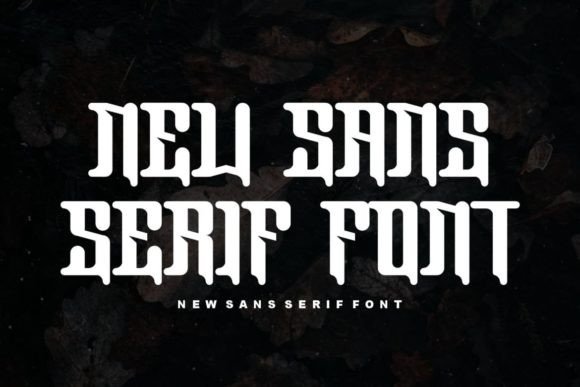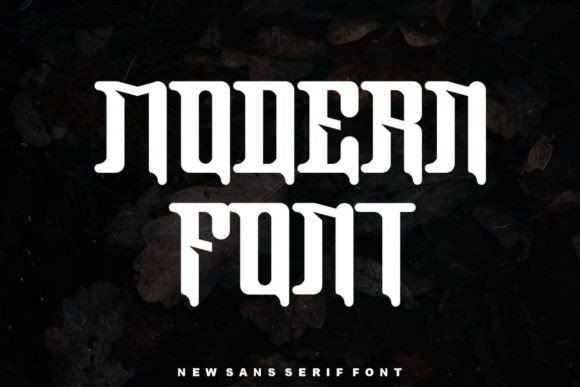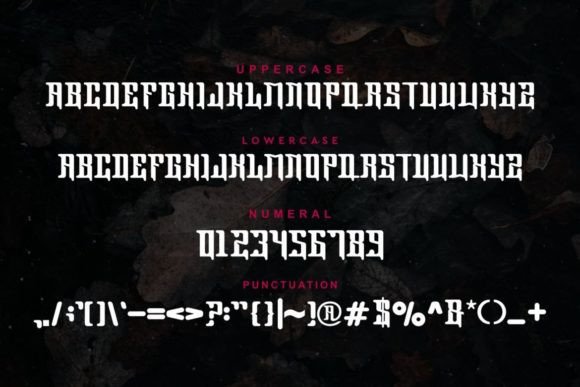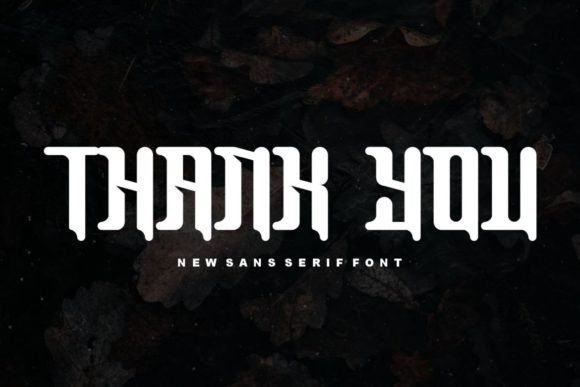
Unleash the Power of Dead Black Font: Elevate Your Designs with a Bold and Authentic Blackletter Style
In the world of typography, fonts play a crucial role in conveying the tone and personality of a brand. For designers and crafters looking to make a statement, Dead Black Font is an exceptional choice. This bold and authentic blackletter font is designed to make your branding projects stand out, whether it’s a logo, t-shirt printing, or export. With its versatility and striking appearance, Dead Black Font is poised to become a staple in your typography arsenal.
What is Dead Black Font?
Dead Black Font is a meticulously crafted blackletter font that exudes a sense of strength and elegance. Its bold strokes and authentic design make it an ideal choice for projects that demand attention. The font’s unique character set ensures that your designs will have a distinctive look that sets them apart from the rest.
Key Features of Dead Black Font
- Bold and Authentic Design: Dead Black Font boasts a bold and authentic blackletter style that commands attention.
- Versatility: Suitable for a wide range of branding projects, including logos, t-shirt printing, export, and more.
- Wide Range of Contexts: The font looks outstanding in various contexts, making it a versatile addition to your typography collection.
Why Choose Dead Black Font?
When it comes to selecting a font for your design project, there are numerous options available. However, Dead Black Font stands out for several reasons:
- Unique Character: The font’s bold and authentic design ensures that your projects will have a distinctive look.
- Ease of Use: Dead Black Font is easy to integrate into your design workflow, making it a convenient choice.
- High-Quality Design: The font is meticulously crafted to ensure that it looks great in various contexts.
Use Cases for Dead Black Font
Dead Black Font is an incredibly versatile font that can be used in a variety of design projects. Here are some examples:
- Logo Design: Create a bold and memorable logo that makes a statement.
- T-Shirt Printing: Add a touch of personality to your apparel designs with this striking font.
- Export and Packaging: Elevate your brand’s packaging with a font that exudes confidence and style.
- Advertising and Marketing: Use Dead Black Font to create eye-catching advertisements and marketing materials.
Tips for Using Dead Black Font
To get the most out of Dead Black Font, consider the following tips:
- Pair with Contrasting Fonts: Combine Dead Black Font with contrasting fonts to create visual interest.
- Experiment with Colors: Try pairing the font with different colors to find the perfect combination.
- Use for Headlines and Titles: Dead Black Font is perfect for headlines and titles, making it an excellent choice for adding emphasis.
Dead Black Font is a bold and authentic blackletter font that is sure to elevate your design projects. With its versatility, striking appearance, and ease of use, it’s an excellent addition to any designer’s typography arsenal. Whether you’re working on a logo, t-shirt printing, or export, Dead Black Font is the perfect choice for making a statement.